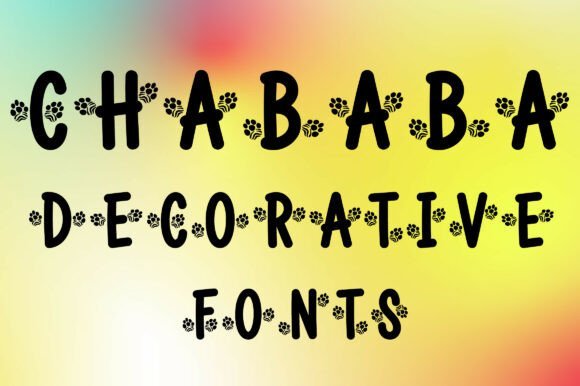
The Art of Expression: Unlocking Your Creativity with Chababa Font
Have you ever stared at a blank canvas, eager to bring your imagination to life but unsure where to start? You’re not alone. Many designers face this challenge every day. But what if you had the perfect tool to unleash your creativity and bring your vision to reality? That’s where the Chababa Font comes in – a beautifully crafted decorative typeface designed to add charm, fun, and personality to any project.
As a versatile font, Chababa Font is perfect for a wide range of creative applications, from logos and posters to branding and packaging. Its unique style gives you endless opportunities to express your creativity with style and imagination. Whether you’re a seasoned designer or just starting out, this font is a valuable addition to your toolkit, allowing you to bring your ideas to life in a way that’s both visually stunning and memorable.
Chababa Font Key Features
- Font Family: Chababa is a unique, custom-designed font family with a wide range of styles and weights.
- Unique Characteristics: Chababa features a distinctive, handwritten aesthetic with subtle flair and elegance, perfect for adding a touch of sophistication to designs.
- Style Options: The font family includes a range of styles, from bold and condensed to light and script, providing designers with versatility and flexibility.
Designer Review: Chababa Font
Overall, I think the Chababa Font is a great addition to any design project. ✨ Its unique, handwritten feel adds a touch of personality and can help to make your content stand out. The font is highly customizable, making it easy to adjust the size, color, and spacing to fit your specific needs.
- ✨ Unique, handwritten feel that adds personality to your content
- ✨ Highly customizable, making it easy to adjust the size, color, and spacing
- ✨ Works well for both digital and print projects
However, there are a few limitations to consider. ⚠️ The font may not be suitable for large blocks of text, as the handwriting feel can make it difficult to read. Additionally, some users may find the font too ornate or distracting.
- ⚠️ May not be suitable for large blocks of text
- ⚠️ Can be too ornate or distracting for some users
- ⚠️ Limited availability of italic and bold variations
Overall, I would recommend the Chababa Font for projects where a unique, handwritten feel is desired. While it may have some limitations, the font’s customization options and versatility make it a great choice for designers looking to add some personality to their work.
Chababa Font is ideal for:
- Typography-based designs (e.g., posters, flyers, business cards).
- Creative projects that require a unique and playful font style.
- Branding and identity design (e.g., logos, letterheads, website headers).
Alternatives to Chababa Font
Monserrat is a sans-serif font designed by Julieta Ulanovsky. It is a modern and clean font that works well for digital products, logos, and headlines. It has a geometric feel to it and is highly legible even at small font sizes. Montserrat is a great alternative to Chababa Font for designers who want a more contemporary look.
Comparison: Montserrat has a more geometric feel than Chababa Font, but it shares a similar modern aesthetic. Montserrat is also more versatile and can be used for a wide range of design projects, while Chababa Font is more suited for traditional or cultural designs.